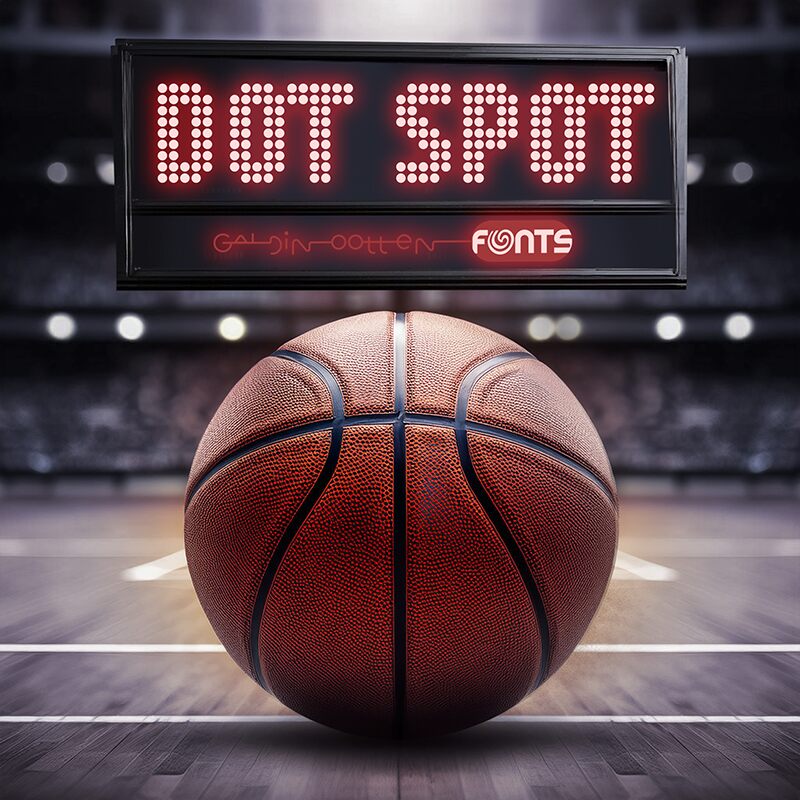
Dot Spot
Dot Spot font by Galdino Otten Fonts was born out of desire of remaking the iconic 1980s dot-matrix typeface. The style is distinctly digital, with no curves whatsoever, equally thick horizontal and vertical strokes and very precise angles. All letters are bold by default, allowing for approximate readability even at relatively small sizes. This is a condensed font where maximum thought went into vertically stacking the elements as uniformly as possible.
Use Dot Spot in any project or print related to technology, science or just plain entertainment. Tech company logo designs could find much use of this amazing typeface which happens to be completely free too! Enjoy it on book covers, packaging boxes labels and other creative label designs or on professional documents such as reports titles. Use big headings when creating layout templates for posters to really show off all what Dot Spot has to offer in terms of personality and looks. Banners for websites or mobile apps are wonderful hosts too whether small ones like buttons which keep things functional yet stylish even if readable text is not included at that size!